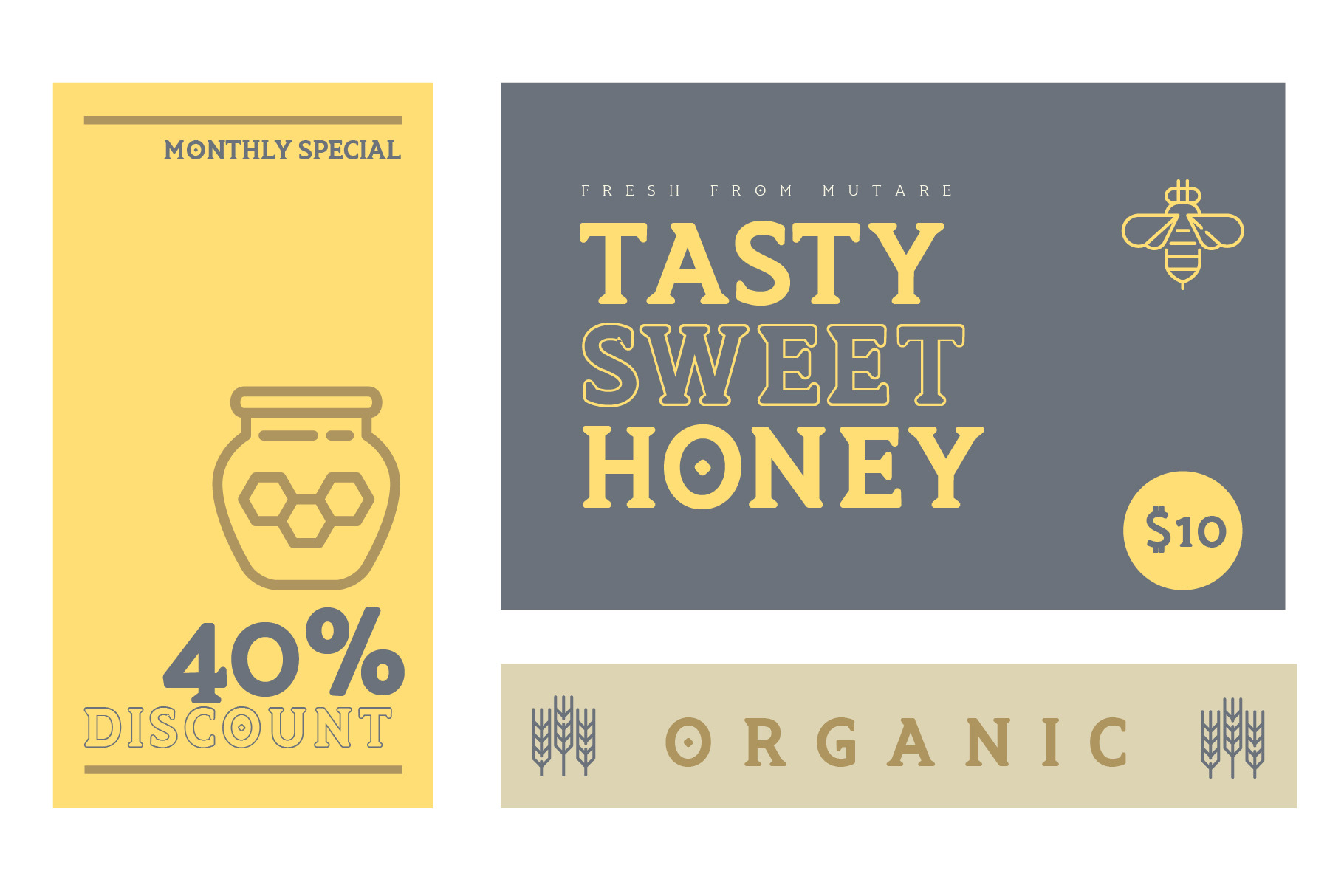
TSG Romulus Typeface
TSG Romulus from Tapiwanashe Sebastian Garikayi is the soft retro version of the original sharp glyphic Romulus family. It’s friendly, retro, and amazingly Sweet. Endless display designs can be created especially when used with retro color palettes. TSG Romulus includes regular and bold weights and extensive language support.